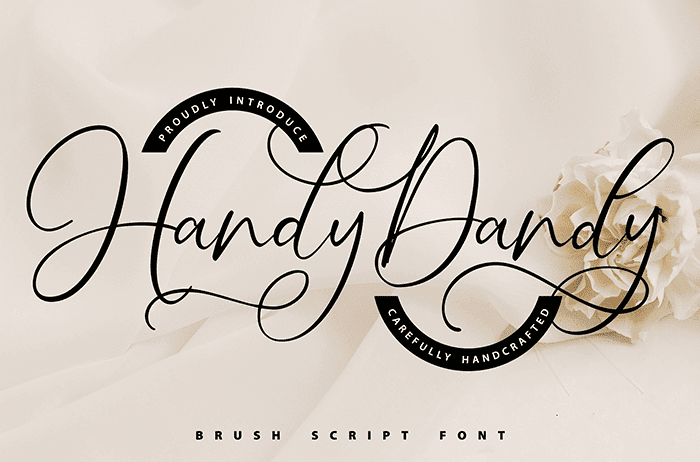
Handy Dandy Brush Font
Handy Dandy is a sweet and charming brush font. Its timeless and flowing style is incredibly fitting to a wide pool of contexts. Thanks to Vunira Studio for sharing this font! Take a look at this portfolio for more of his stunning fonts.